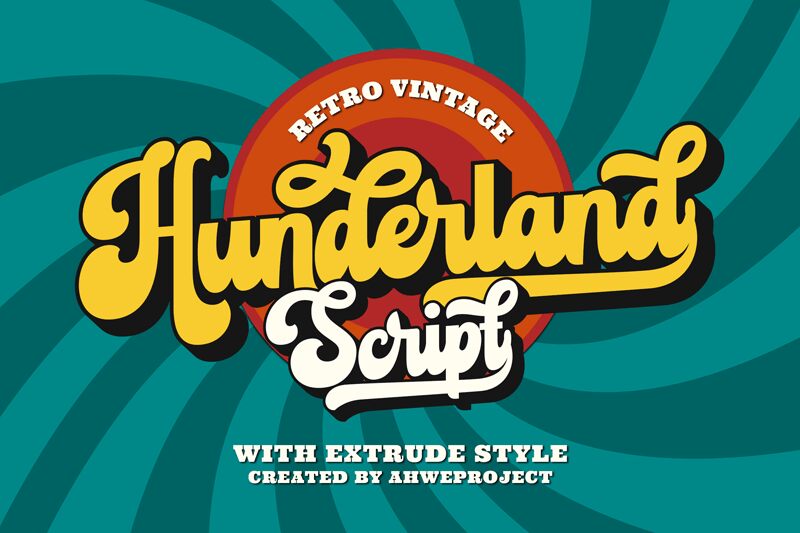
Hunderland Regular
Hunderland font by Ahwe Project is a bold display script with retro and whimsical influences. Designed with smooth brush strokes, this free font carries expressive curves and smooth transitions to create its charming characters. A nostalgic vibe can be immediately felt upon glancing at the lovely letters, but the font preserves its relevance as a modern typeface.
Fun and playful design projects are the ideal use cases where Hunderland will stand out from other options you have on hand. Posters, logos, t-shirt designs, packaging designs (especially food packaging), branding purposes, website headers and subheadings are some of them to begin with. Users will find it also fun to use the font in social media posts such as Instagram or Facebook stories which they want to make different with new ideas.